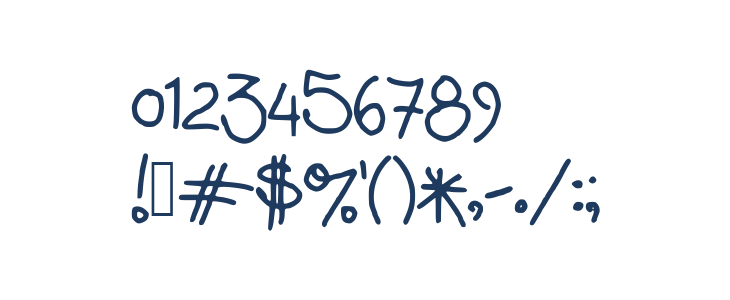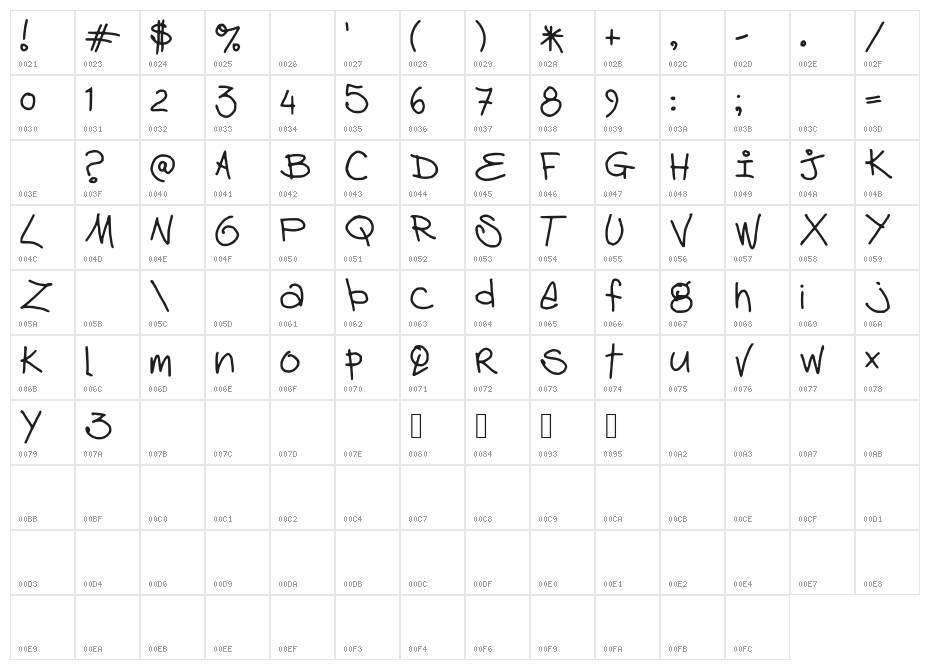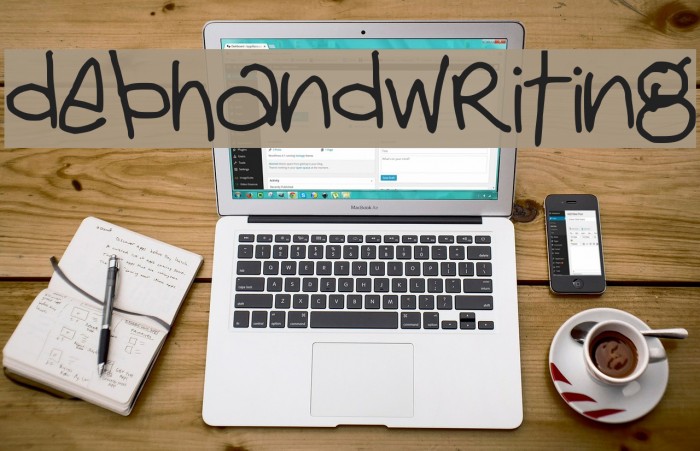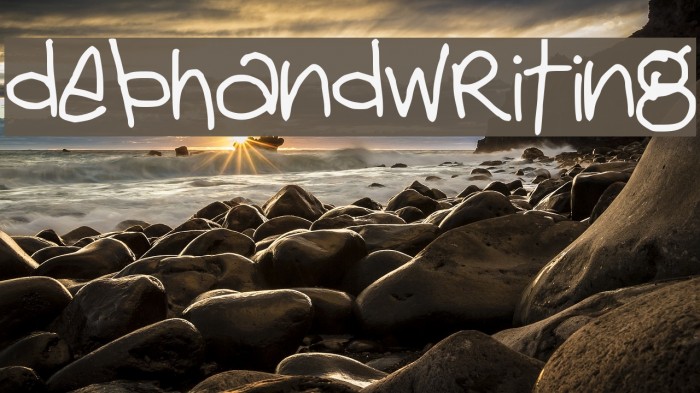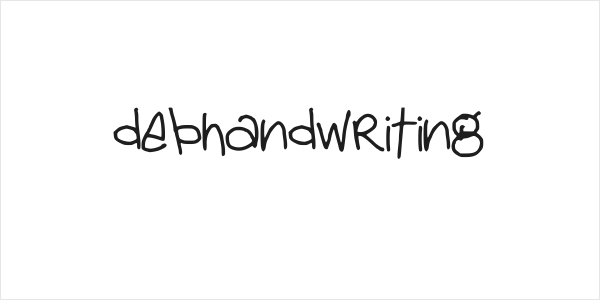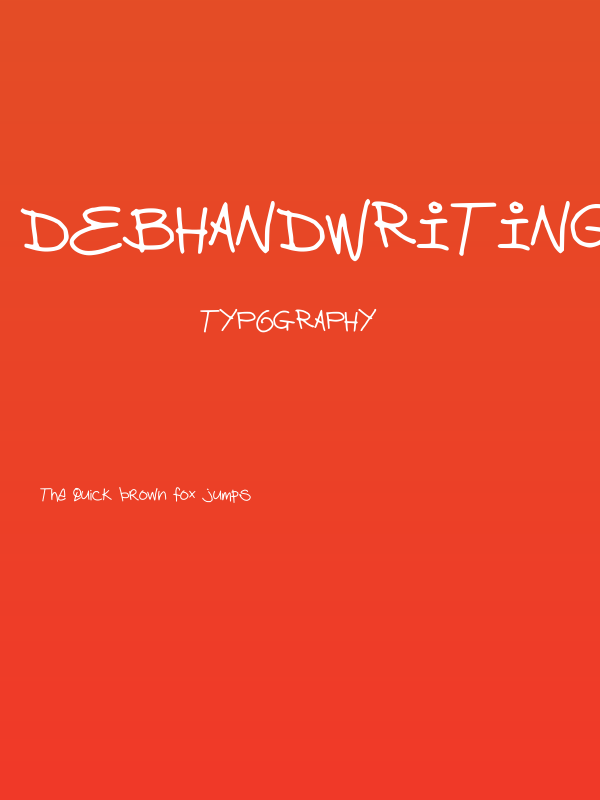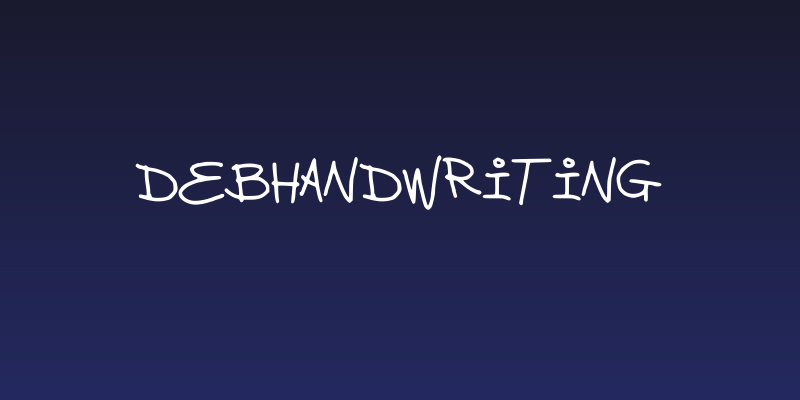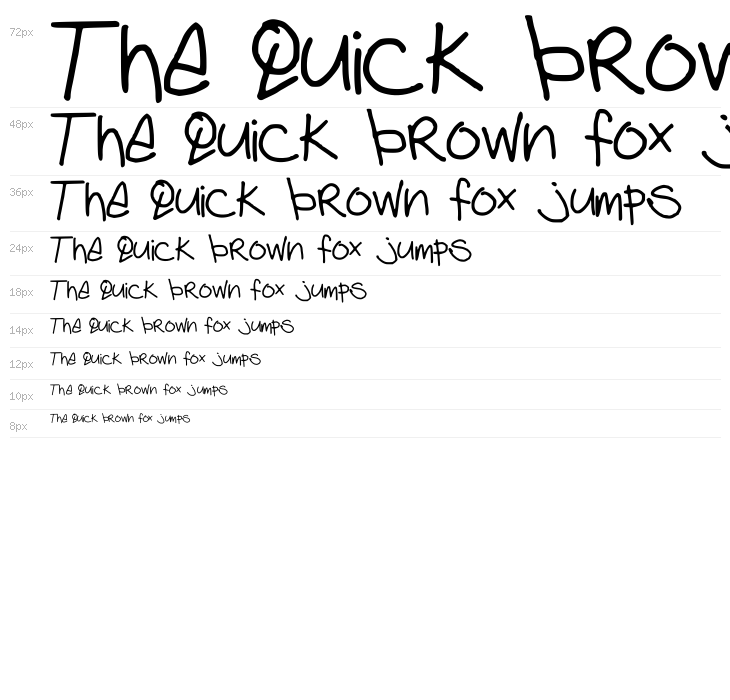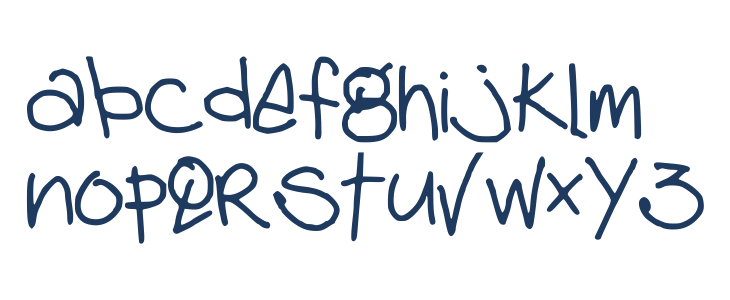
debhandwriting Font
debhandwriting Description
This font exudes a playful and casual handwritten style, characterized by its irregular and organic letterforms. The uppercase and lowercase letters maintain a consistent flow, with each character exhibiting unique quirks that add to its charm. The numerals and special characters follow the same informal aesthetic, making the font suitable for projects that require a personal touch. The strokes are moderately thick, providing good legibility while retaining a relaxed feel. This font is ideal for creative projects where a human element is desired, such as invitations, greeting cards, or personal branding.
| Proposed Projects | Ideal for invitations, greeting cards, personal branding, and creative projects. |